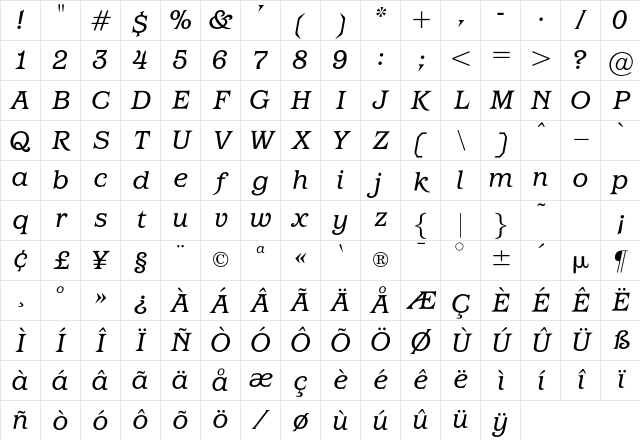
OPTIBarMay Italic Free Font
OPTIBarMay Italic
Design Context for OPTIBarMay
OPTIBarMay is a composed and adaptable typeface that performs quietly and consistently across a wide range of design contexts. The slanted form adds forward momentum and visual energy.
Pro Tip: Use OPTIBarMay for emphasis, pull quotes, and subheadings where its slanted energy can add rhythm to the layout.
Who designed the OPTIBarMay Italic font?